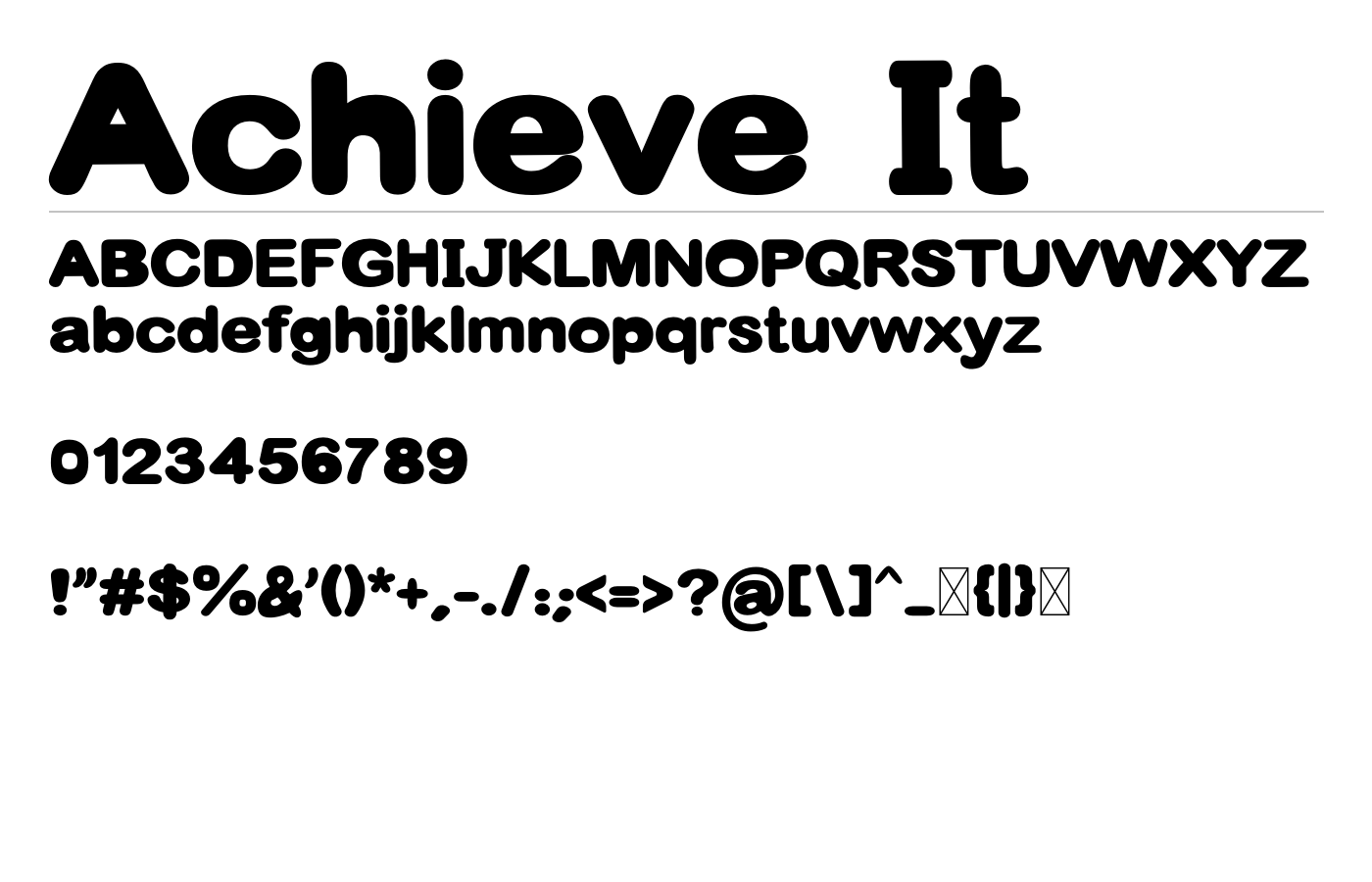
Achieve It is a bold, rounded sans serif font with a friendly and approachable character. Its thick, even strokes and slightly condensed letterforms create a strong, playful presence that works well for inviting headlines, logos, and branding aimed at casual or youthful audiences. This font’s clear, bubbly design makes it perfect for projects that want to convey warmth and confidence without sacrificing readability.
Achieve It Font
About Achieve It Font
| Font family | Achieve It Font |
| Designer | Qara Anass |